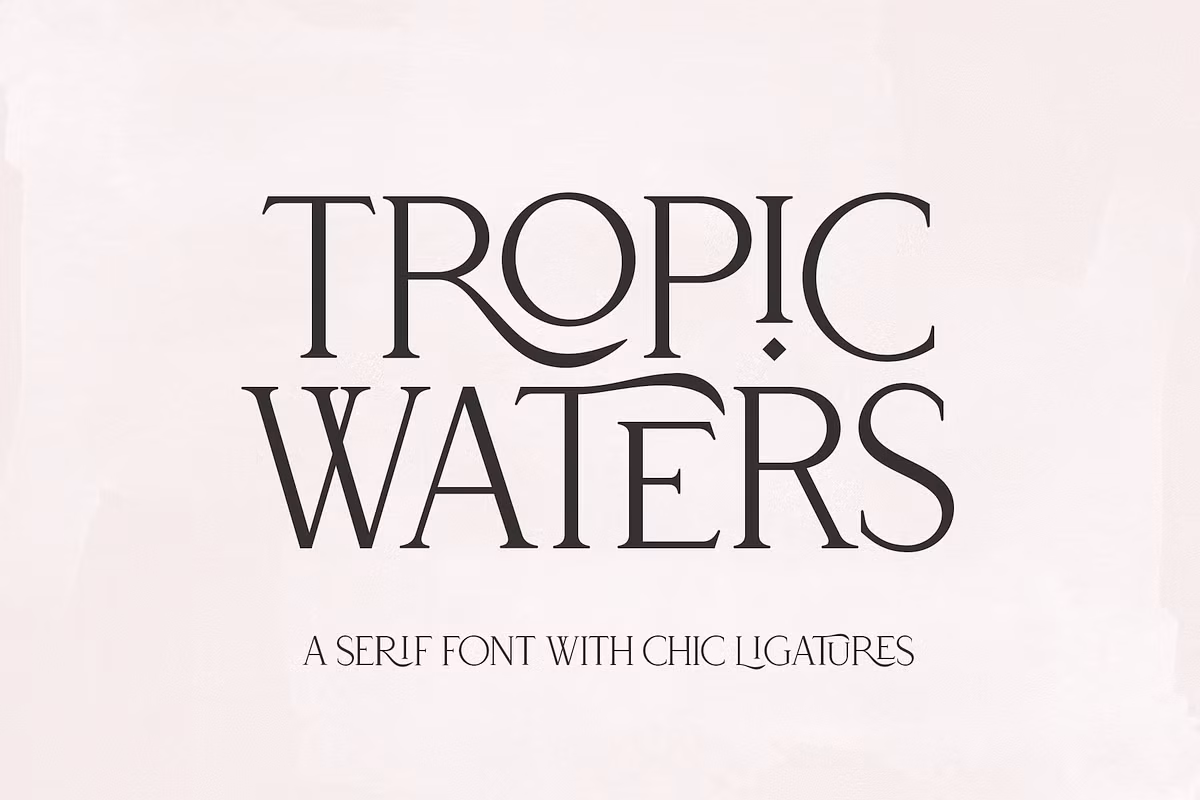
Tropic Waters | Classy Serif Font Free Download is a refined and elegant serif typeface that blends classic sophistication with modern charm. With its sharp serifs, balanced proportions, and graceful curves, this font is perfect for luxury branding, high-end editorial design, invitations, logos, and any project that demands a timeless and professional look.
Tropic Waters brings a sense of refinement and elegance to your designs, making it ideal for upscale businesses, elegant event invitations, or prestigious brands. Its high contrast and distinct design make it stand out in both print and digital formats.